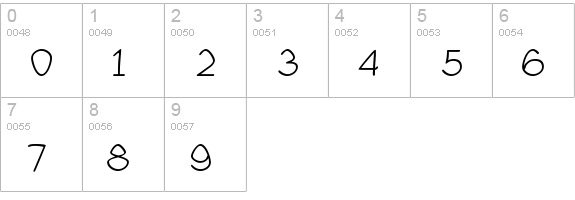
Sundsvall Font Details
Sundsvall font is a modern and stylish typeface that exudes elegance and sophistication. With its clean lines and contemporary design, this font is perfect for a wide range of projects, from branding to advertising to editorial design. One of the best things about Sundsvall font is that it is completely free to download at FontsMarket.com. This means you can easily access this high-quality font without any cost, making it a fantastic option for designers on a budget. Whether you are looking to elevate your design projects or simply want to experiment with a new font, Sundsvall font is a fantastic choice that is both versatile and visually appealing. Download it today and see for yourself the impact that this beautiful font can have on your work.